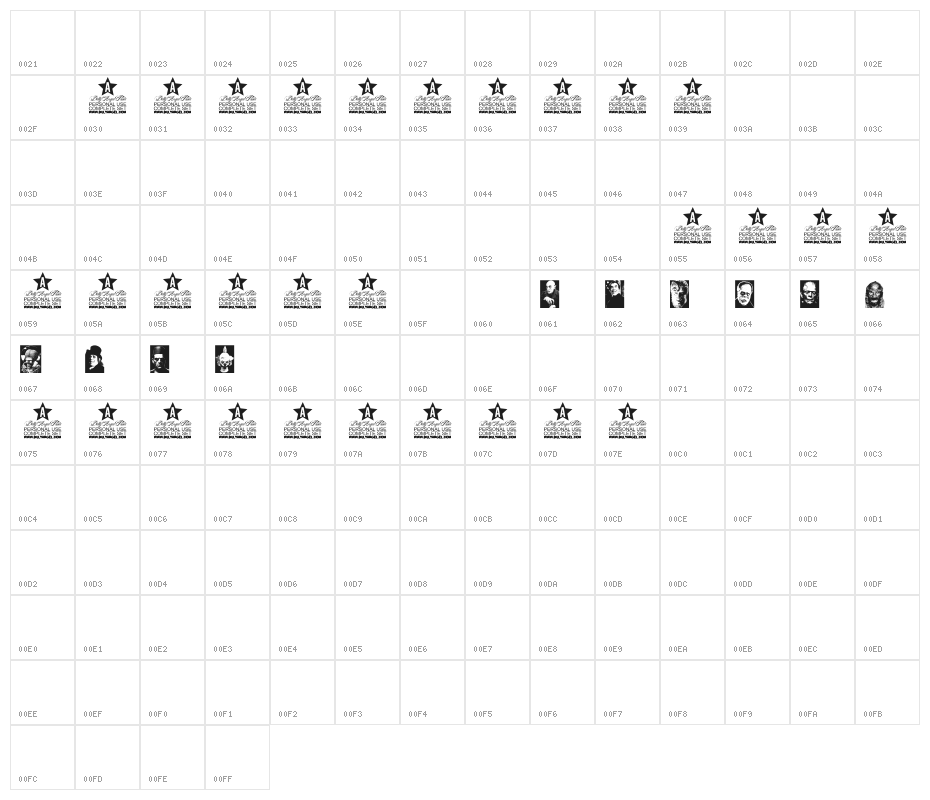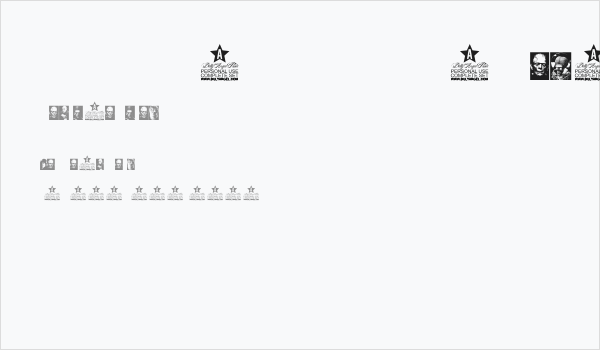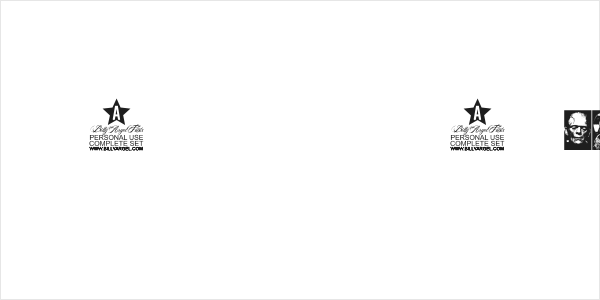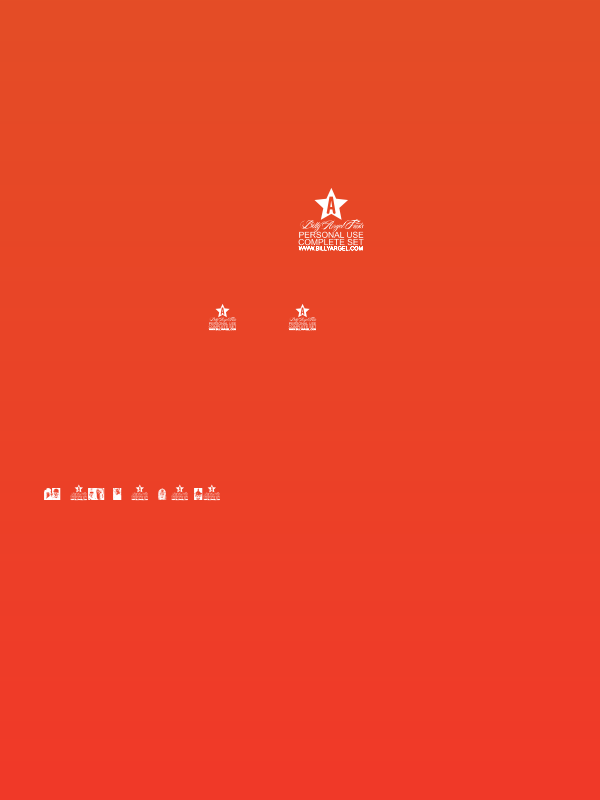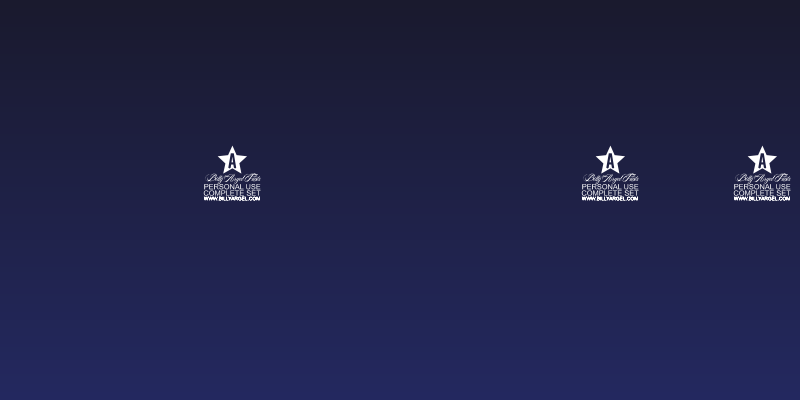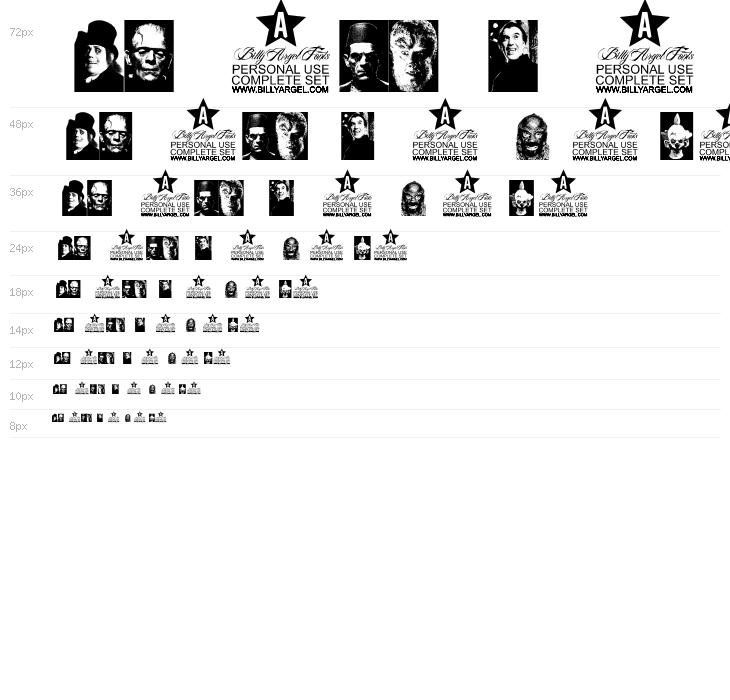
TIMEMACHINE HALLOWEEN CLASSICS PERSONAL USE Regular Font
TIMEMACHINE HALLOWEEN CLASSICS PERSONAL USE Regular Description
This is a decorative dingbat font featuring black-and-white illustrations of classic horror and Halloween-themed characters, with each glyph representing a different iconic monster or figure. The font is not alphanumeric but instead uses images for each character slot.
| Overall Style | Decorative, Thematic, Vintage Horror |
| Use Case | Decorative elements, Themed graphics, Not suitable for body text or headlines. |
| Proposed Projects | Halloween party invitations, themed posters, event flyers, spooky decorations, novelty crafts. |